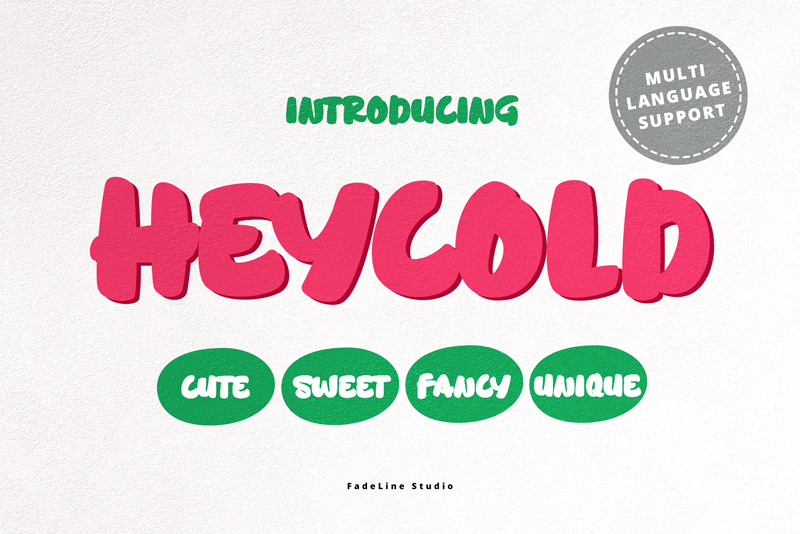
Font name: | Heycold |
Author: | Juni Fadil Putra |
Note by Juni Fadil Putra | |
ntroducing! HEYCOLD is a new beautiful and modern display font! This fun font has cute, cute, round, unique and fancy font characters. Made specifically with attention to appearance, aims to give happiness to everyone who uses it! This font is free for just Personal use Link to download full version : https://fontbundles.net/fadeline/389985-heycold-cute-font/rel=zhSUnV Visit my store for more great fonts: https://creativemarket.com/fadeline or https://fontbundles.net/fadeline/rel=zhSUnV Thank you! |